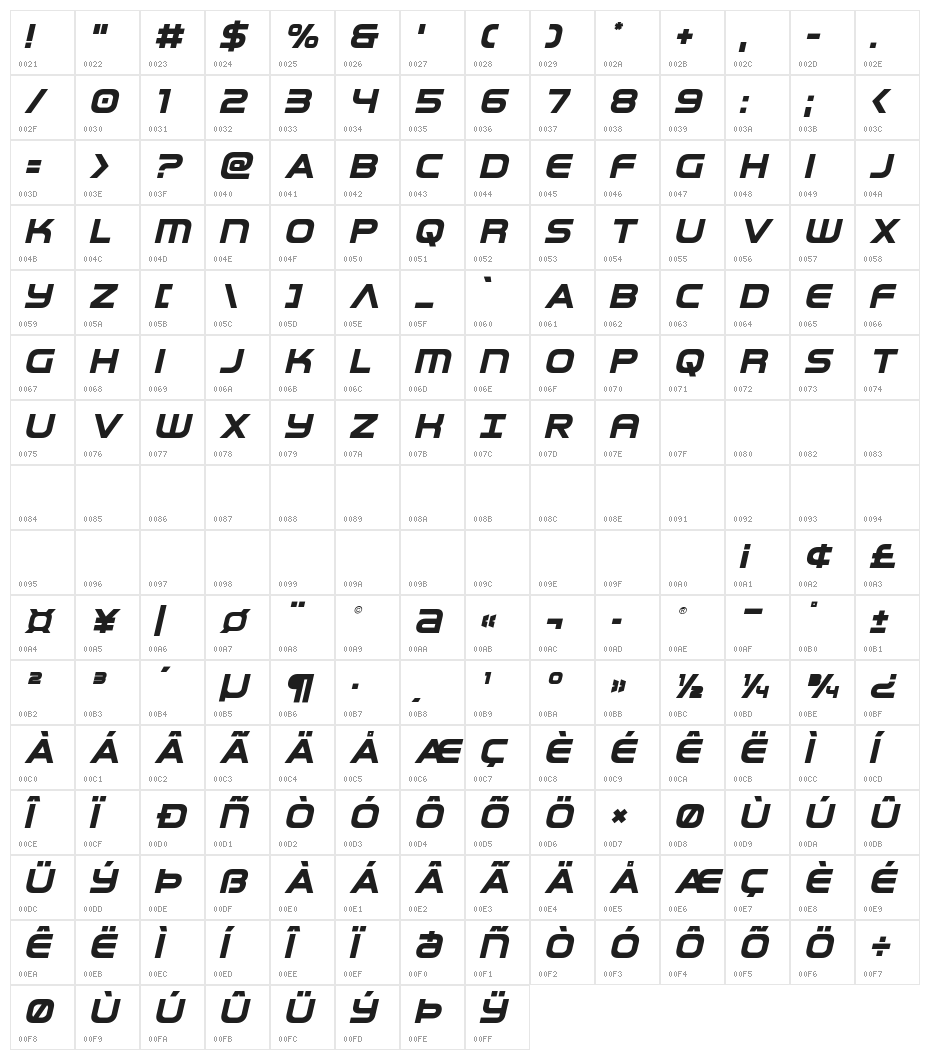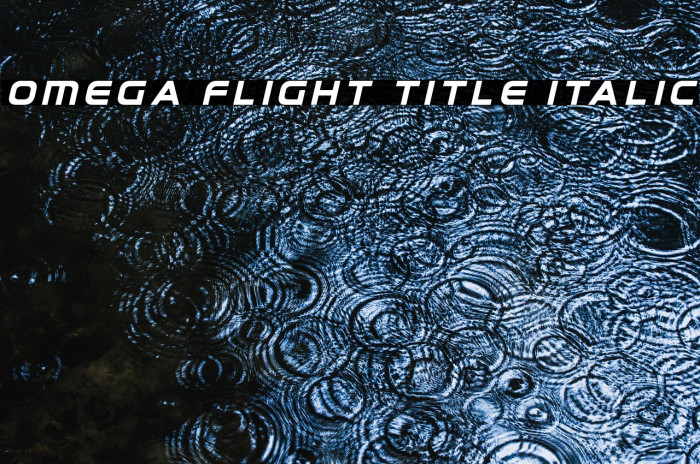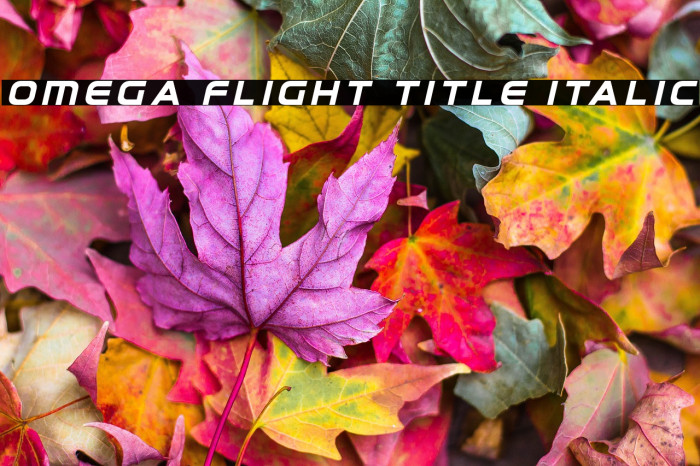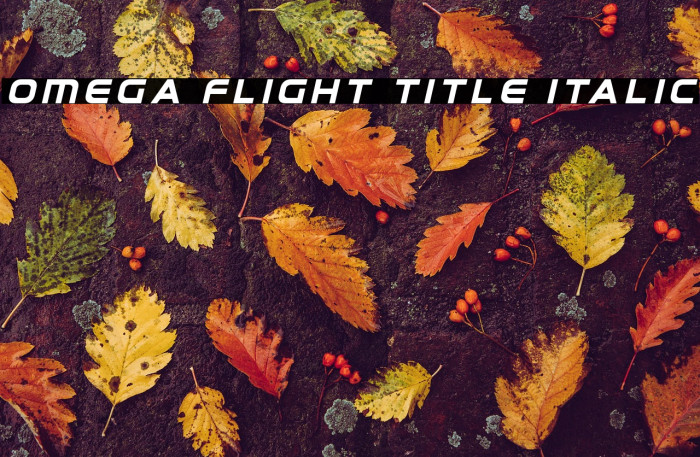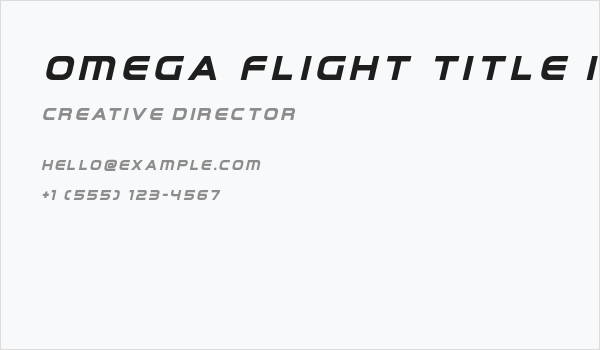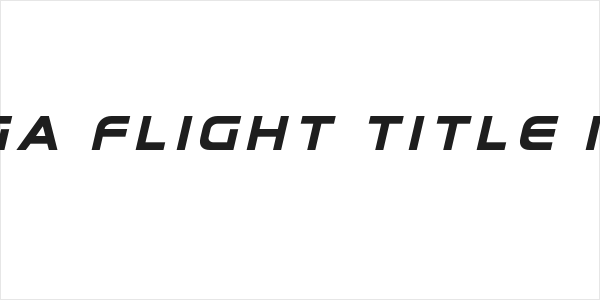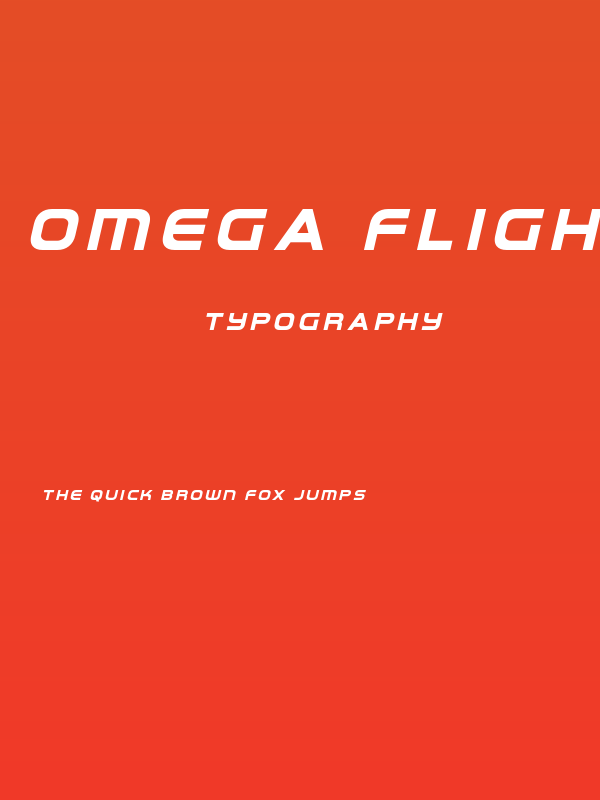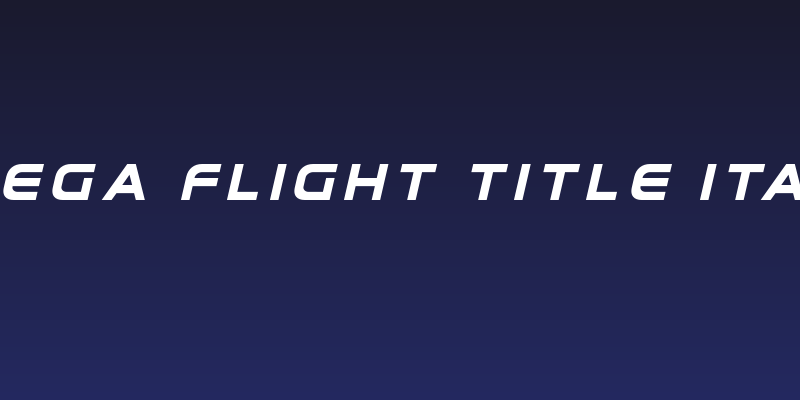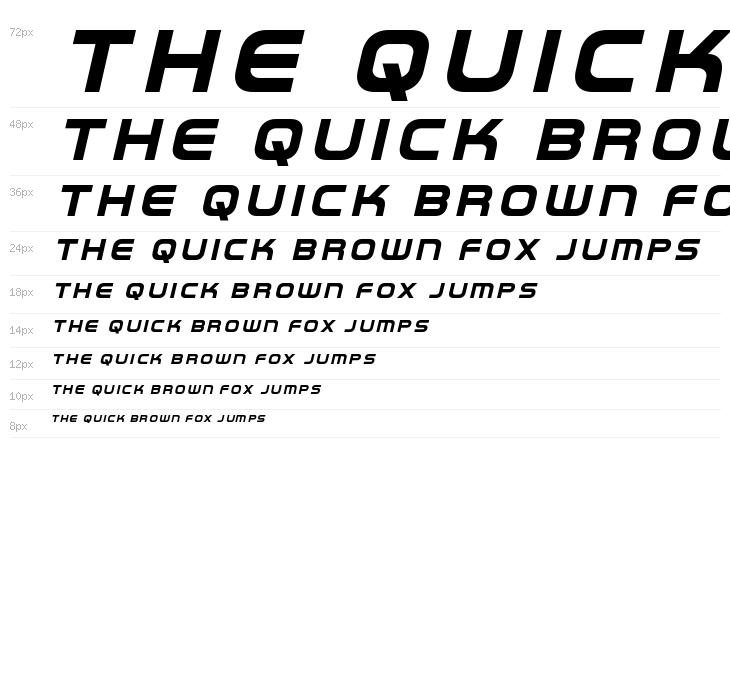
Omega Flight Title Italic Font
Omega Flight Title Italic Description
This font features a sleek, modern design with a distinct italic slant, giving it a dynamic and forward-moving appearance. The characters are crafted with precision, showcasing a geometric structure that maintains clarity and readability. The uppercase and lowercase letters are consistent in style, with a slight curvature that adds a touch of elegance. The numerals and special characters are well-integrated, maintaining the overall aesthetic. The font's clean lines and uniform stroke width make it suitable for a variety of applications, from digital interfaces to print media.
| Use Case | Headlines, Logos, Digital Interfaces |
| Proposed Projects | Ideal for branding, advertising, digital interfaces, and editorial design. |